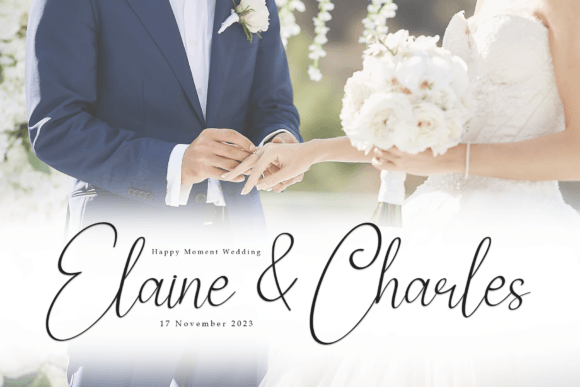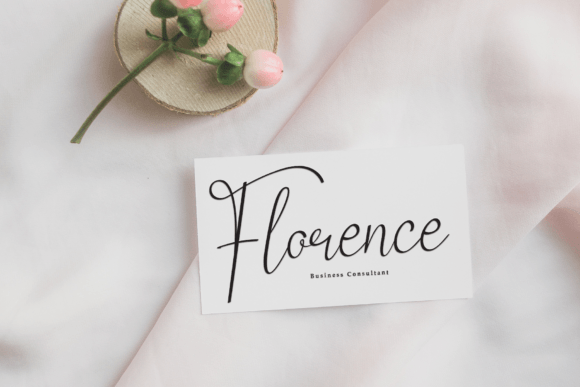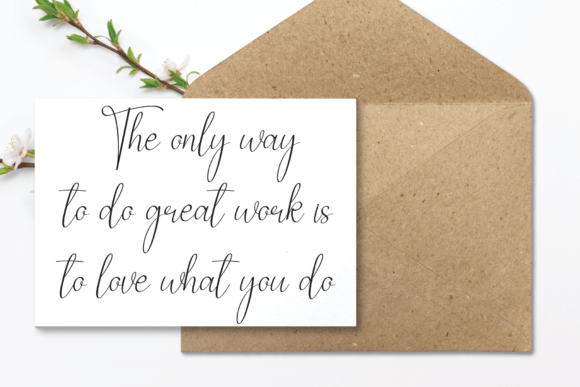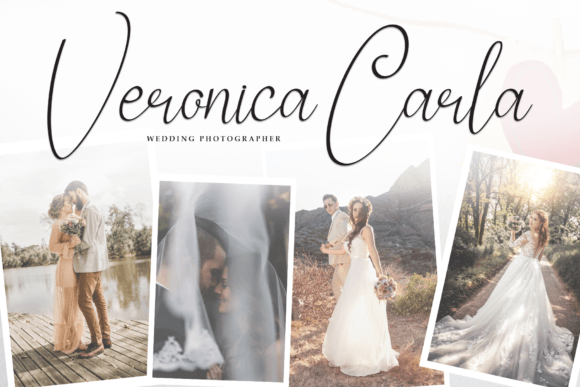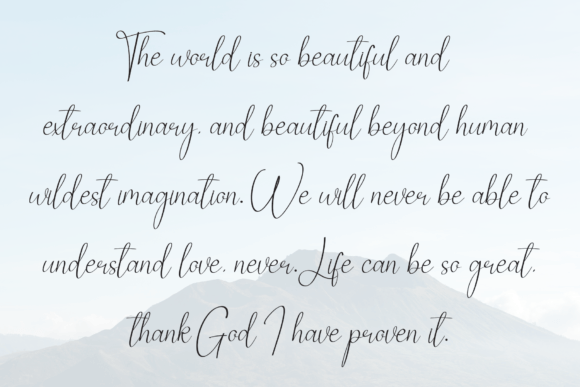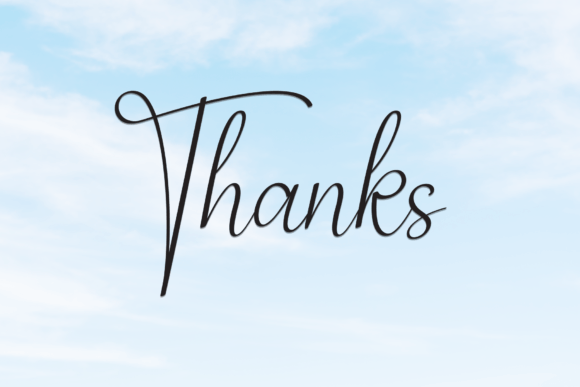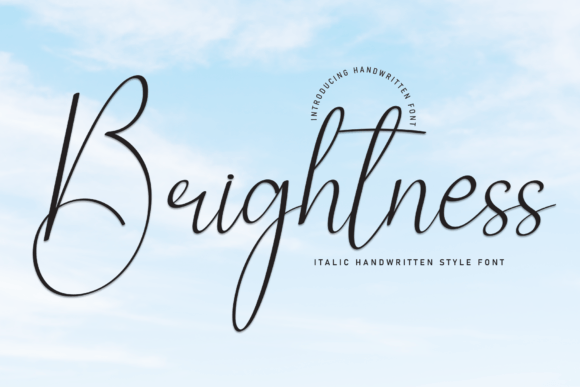
Introducing Brightness Font: The Sweet and Friendly Handwritten Display Font
Are you looking for a font that can add a touch of warmth and personality to your designs? Look no further than Brightness Font, a sweet and friendly handwritten display font that’s perfect for creating eye-catching and engaging content. In this article, we’ll take a closer look at the features and benefits of Brightness Font, and explore how you can use it to elevate your designs.
What is Brightness Font?
Brightness Font is a beautiful, handmade font that’s designed to bring a sense of joy and playfulness to your designs. With its rounded edges and whimsical feel, this font is ideal for creating designs that need a personal touch. Whether you’re designing wedding invitations, greeting cards, or social media graphics, Brightness Font is the perfect choice.
Key Features of Brightness Font
- Cute and Fun: Brightness Font has a playful and whimsical feel that’s perfect for designs that need a touch of personality.
- Handwritten: This font is carefully crafted to mimic the look and feel of handwritten text, giving it a warm and personal feel.
- Display Font: Brightness Font is designed to be used as a display font, making it perfect for headlines, titles, and other prominent text elements.
- Versatile: This font can be used for a wide range of design projects, from wedding invitations and greeting cards to social media graphics and more.
Why Choose Brightness Font?
So why should you choose Brightness Font for your next design project? Here are just a few reasons:
- Unique and Eye-Catching: Brightness Font has a unique and eye-catching style that’s sure to grab attention.
- Easy to Read: Despite its playful feel, Brightness Font is easy to read and understand, making it perfect for designs that need to communicate a message.
- Customizable: This font can be easily customized to fit your design needs, from adjusting the size and color to adding effects and textures.
Using Brightness Font in Your Designs
So how can you use Brightness Font in your designs? Here are a few ideas to get you started:
- Wedding Invitations: Brightness Font is perfect for creating beautiful and personalized wedding invitations that set the tone for the big day.
- Greeting Cards: This font is also great for creating greeting cards for special occasions, from birthdays and holidays to get well wishes and congratulations.
- Social Media Graphics: Brightness Font can add a touch of personality to your social media graphics, from Facebook posts and Twitter headers to Instagram stories and Pinterest pins.
Tips and Tricks for Working with Brightness Font
Here are a few tips and tricks to help you get the most out of Brightness Font:
- Pair it with Other Fonts: Brightness Font can be paired with other fonts to create a unique and eye-catching combination.
- Experiment with Colors: This font looks great in a wide range of colors, from bright and bold to soft and pastel.
- Add Effects and Textures: Consider adding effects and textures to Brightness Font to give it an extra layer of depth and interest.
In conclusion, Brightness Font is a sweet and friendly handwritten display font that’s perfect for adding a touch of personality to your designs. With its cute and fun style, versatility, and ease of use, this font is ideal for designers and crafters who want to create eye-catching and engaging content. Whether you’re designing wedding invitations, greeting cards, or social media graphics, Brightness Font is the perfect choice.